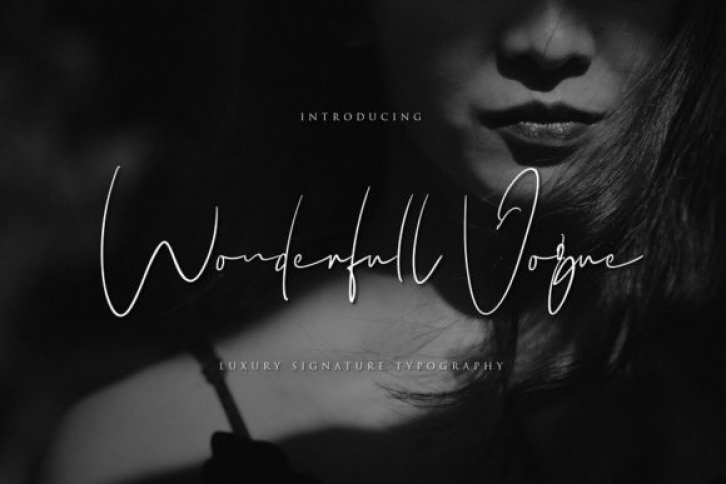
Wonderfull Vogue is a thin lettered and sweet calligraphy typeface with characters that dance along the baseline. It will add a luxury spark to any design project that you wish to create!